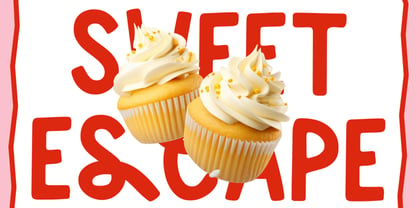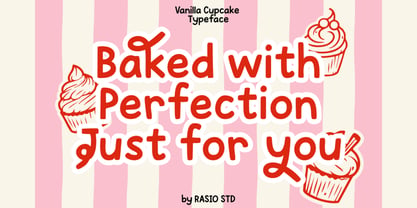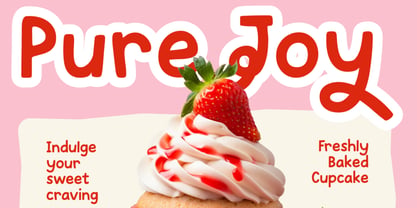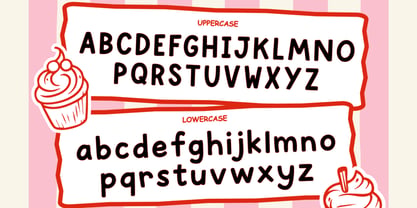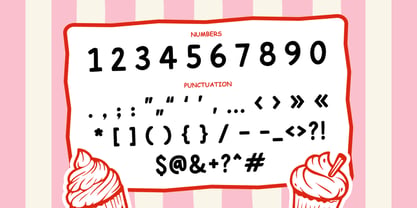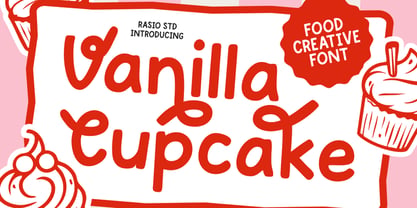
Vanilla Cupcake
by Rasio Studio
The Vanilla Cupcake Font Family was designed by Fajar Indra and published by Rasio Studio. Vanilla Cupcake contains 1 styles. More about this family
Vanilla Cupcake is a cheerful handwritten font inspired by bakery aesthetics and playful doodles. Its rounded, bouncy strokes create a warm and friendly appearance that makes every word feel inviting and full of character. With its casual and hand-drawn style, this font brings a sense of fun and charm to any project — perfect for food packaging, children’s illustrations, cafe logos, posters, and creative branding. Featuring uppercase and lowercase letters, numerals, and punctuation, Vanilla Cupcake delivers a delightful balance of simplicity and expressiveness. Every curve feels organic and joyful — just like the homemade sweetness it’s named after.
Designers: Fajar Indra
Foundry: Rasio Studio